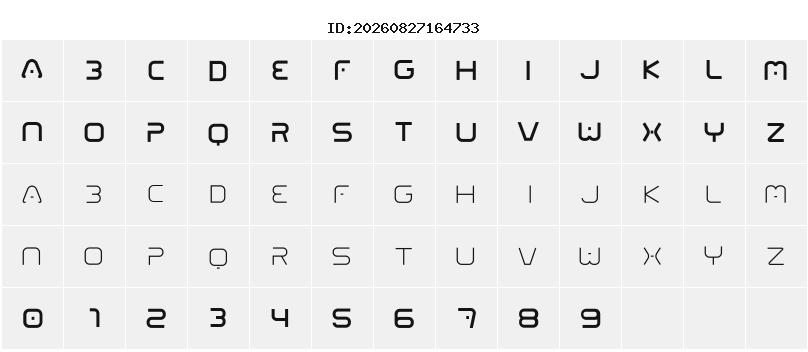
• Font Name: 01 Digitall
• Designer: David Chung
About 01 Digitall.ttf
01 Digitall.ttf is a modern, elegant sans-serif font designed for ultimate readability and visual harmony. Perfect for branding, headlines, web design, and print materials.